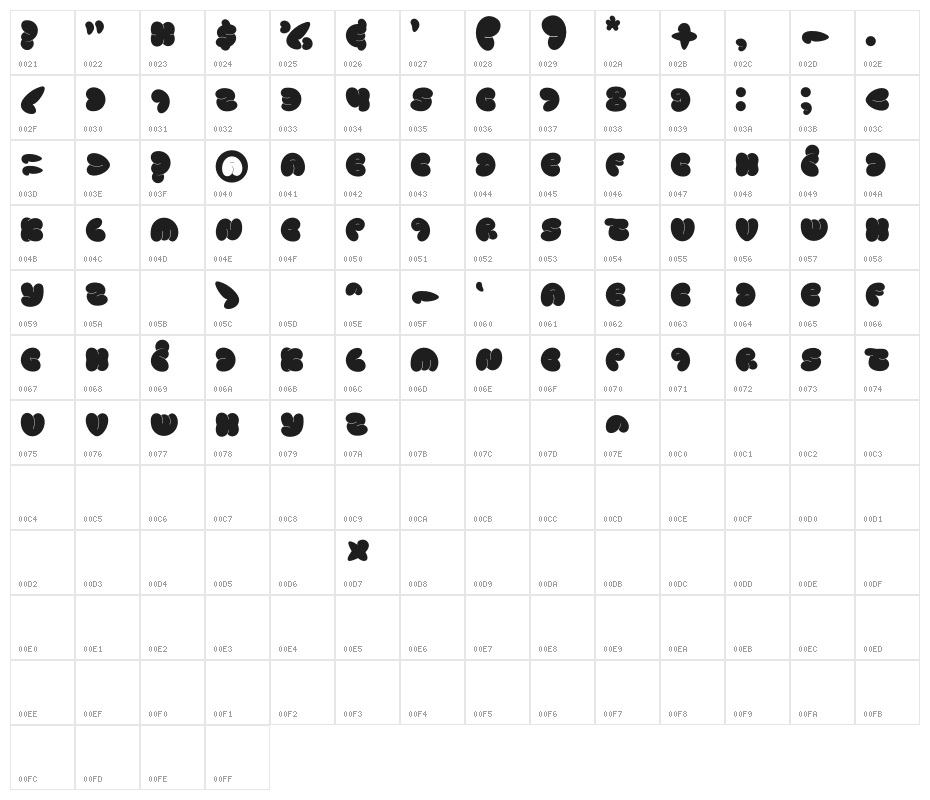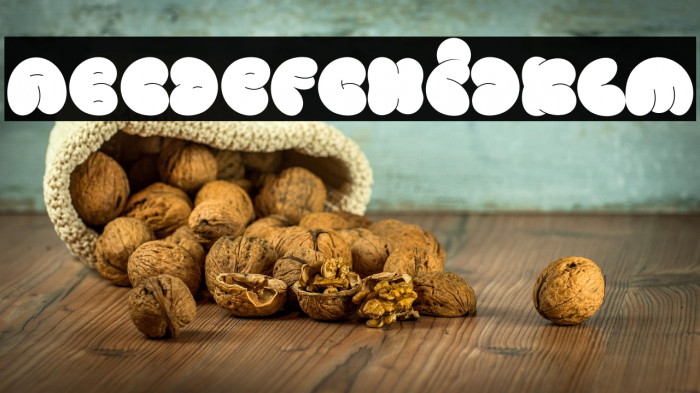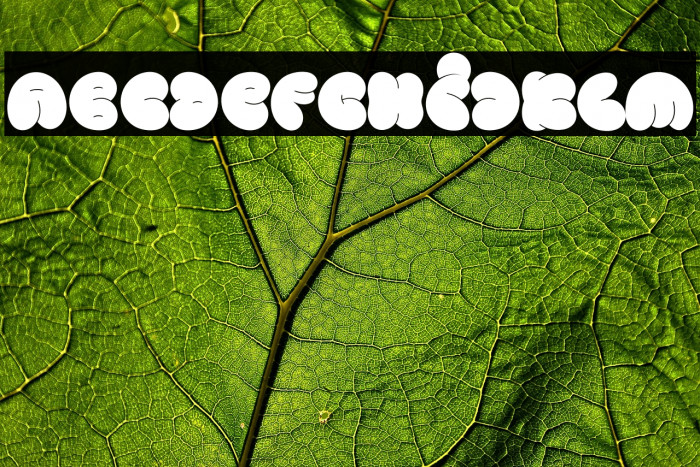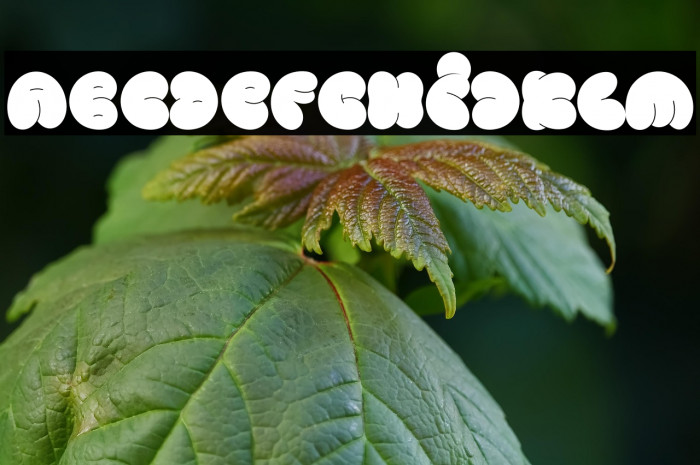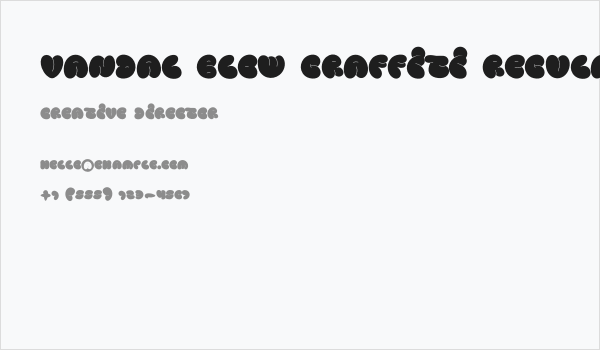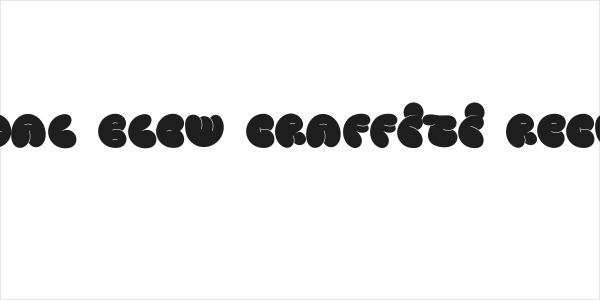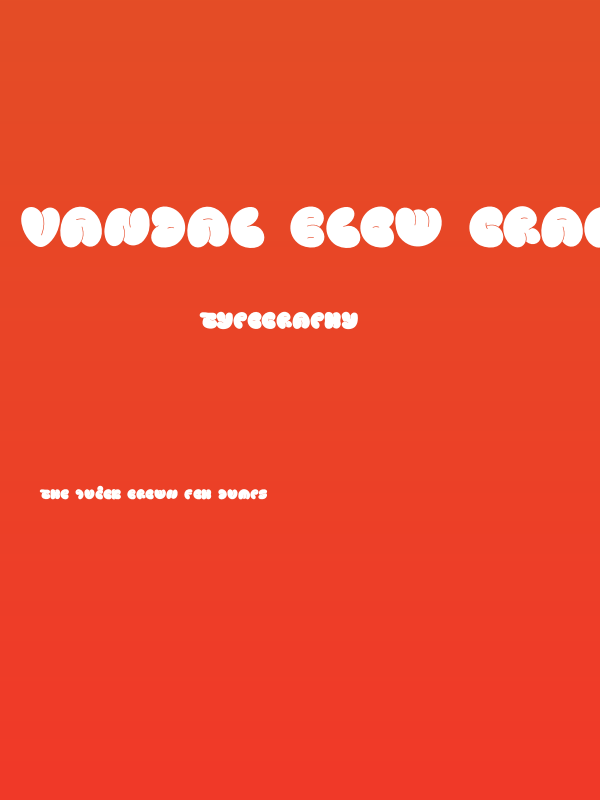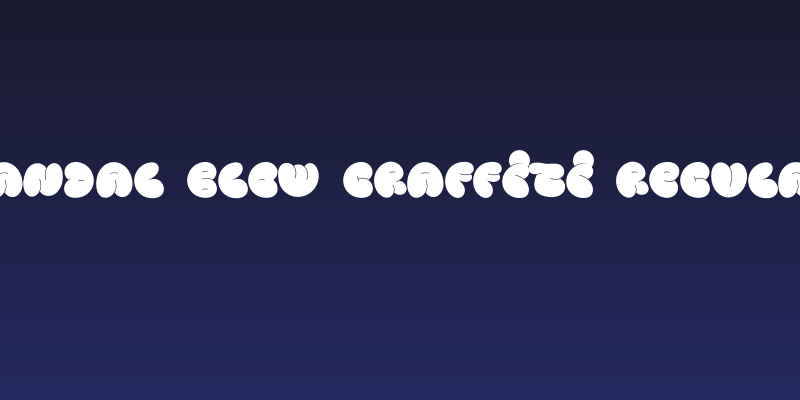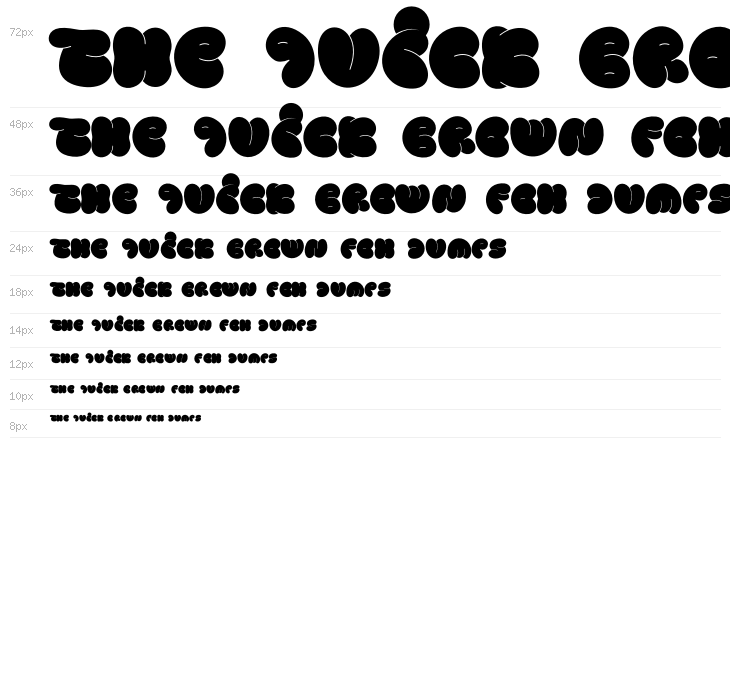
Vandal Blow Graffiti Regular Font
Vandal Blow Graffiti Regular Description
This font is characterized by its bold, rounded, and bubble-like appearance, reminiscent of graffiti art. The letters are heavily stylized with a playful and informal vibe, making them stand out with their thick, uniform strokes. The overall look is dynamic and energetic, with each character appearing as if it is inflated or puffed up. This style is perfect for capturing attention and conveying a sense of fun and creativity. The font maintains a consistent weight throughout, ensuring that each letter is easily legible despite its unconventional form. The spacing between characters is tight, contributing to the cohesive and compact feel of the text.
| Proposed Projects | Ideal for street art-inspired designs, posters, album covers, and urban-themed branding. |